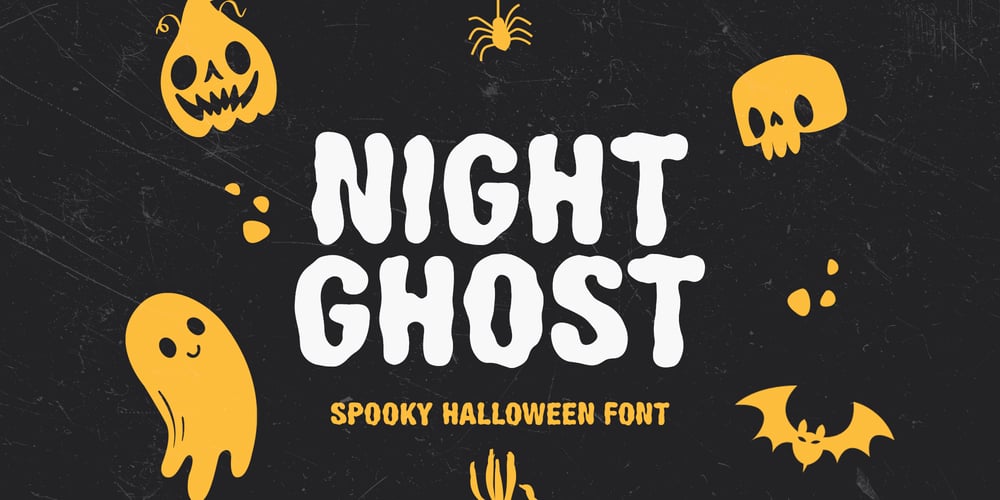
Night Ghost Font Family was designed by Dmitrii Chirkov and published by Supfonts. Night Ghost contains 1 styles and family package options. Night Ghost spooky halloween font will be perfect for halloween lettering, beautiful frame for your home, book covers, greeting cards, logos, marketing, magazines or anything that requires cute handwritten lettering :)What’s inside:- Night Ghost Regular- Multilingual support- Cricut supportIf you have any questions, please contact me directly or in instagram @superdizigner